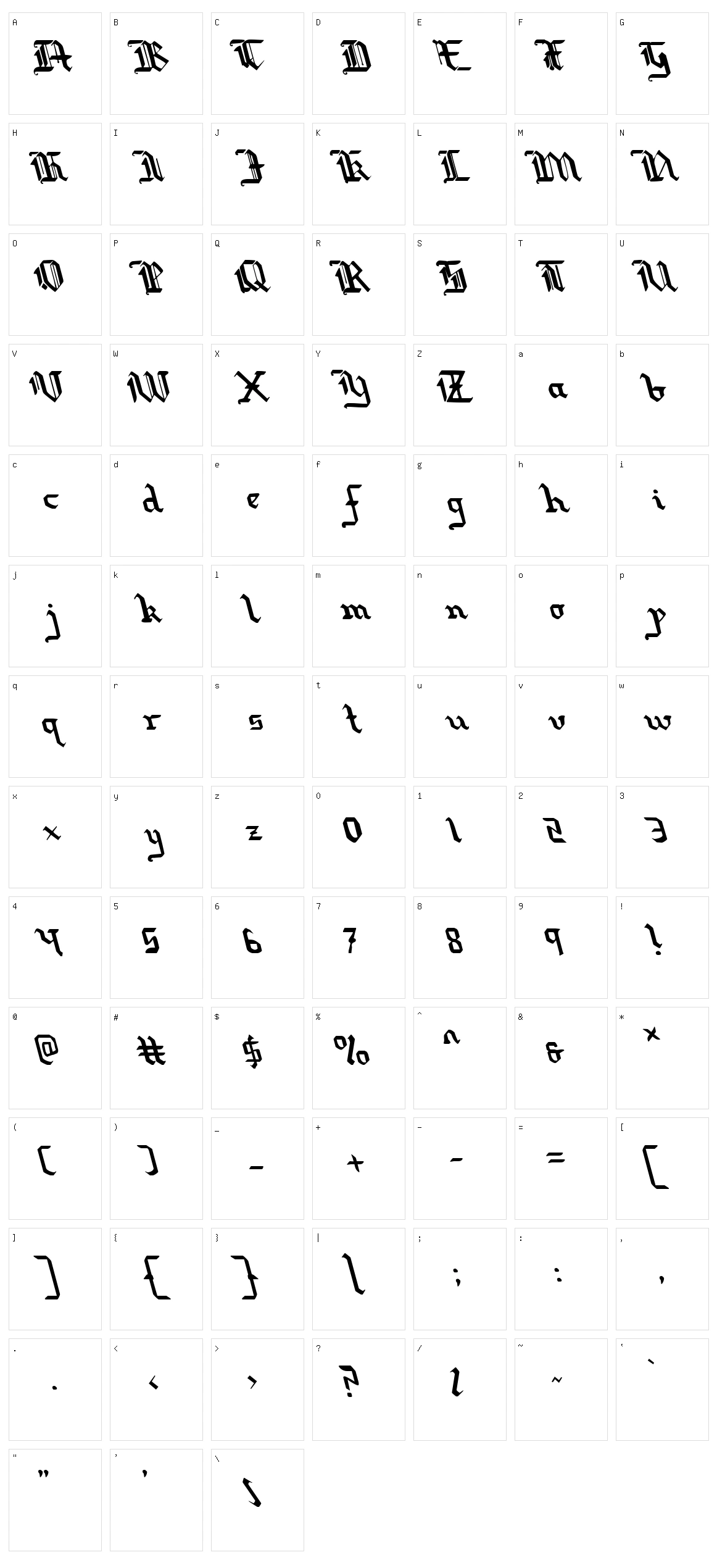
Redcoat
Description: The free font Redcoat is carefully designed by Iconian Fonts, showcasing a thoughtful balance of creativity and usability and belongs to the Gothic font family. When you download the ZIP file, it contains only 531.76 KB of font files, making it lightweight and quick to download. Please review the license details below to understand permitted usage and distribution rights. If license information is not available, we recommend using this font for personal projects only or contacting the author directly for commercial usage permissions.
This font comes with the following 9 versions: Regular, Italic, Expanded, Expanded Italic, Condensed, Condensed Italic, Shadow, Shadow Italic and Leftalic.